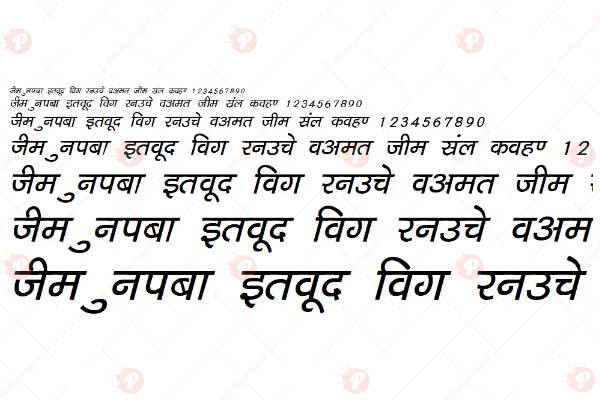
The Kurti Dev Bold Italic Font is a unique combination of strength and elegance in Devanagari typography. With its bold weight and italic slant, this font brings a dynamic and expressive look to Hindi and Sanskrit designs. Perfect for festival posters, devotional invitations, banners, cultural branding, magazines, book covers, and packaging, it balances both readability and artistic flair.
The traditional Devanagari script with bold italic styling makes this font ideal for projects where you want to emphasize devotion, culture, and heritage while keeping a modern aesthetic.
Script: Devanagari (Hindi/Sanskrit)
Style: Bold Italic / Traditional / Cultural Typeface
Perfect for: Religious Posters, Invitations, Festival Banners, Devotional Books, Cultural Branding & Social Media Graphics
| Optimum Size | Large (Display / Poster) |